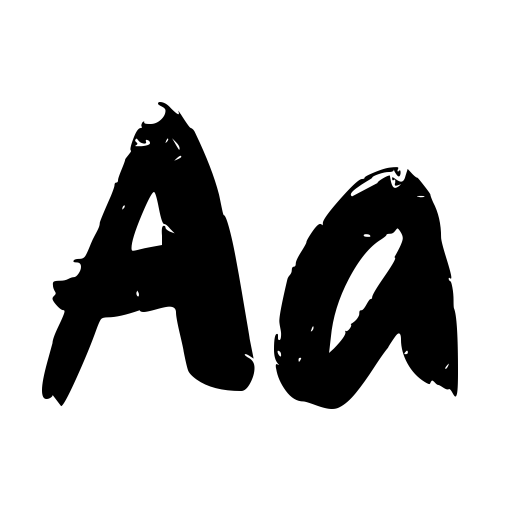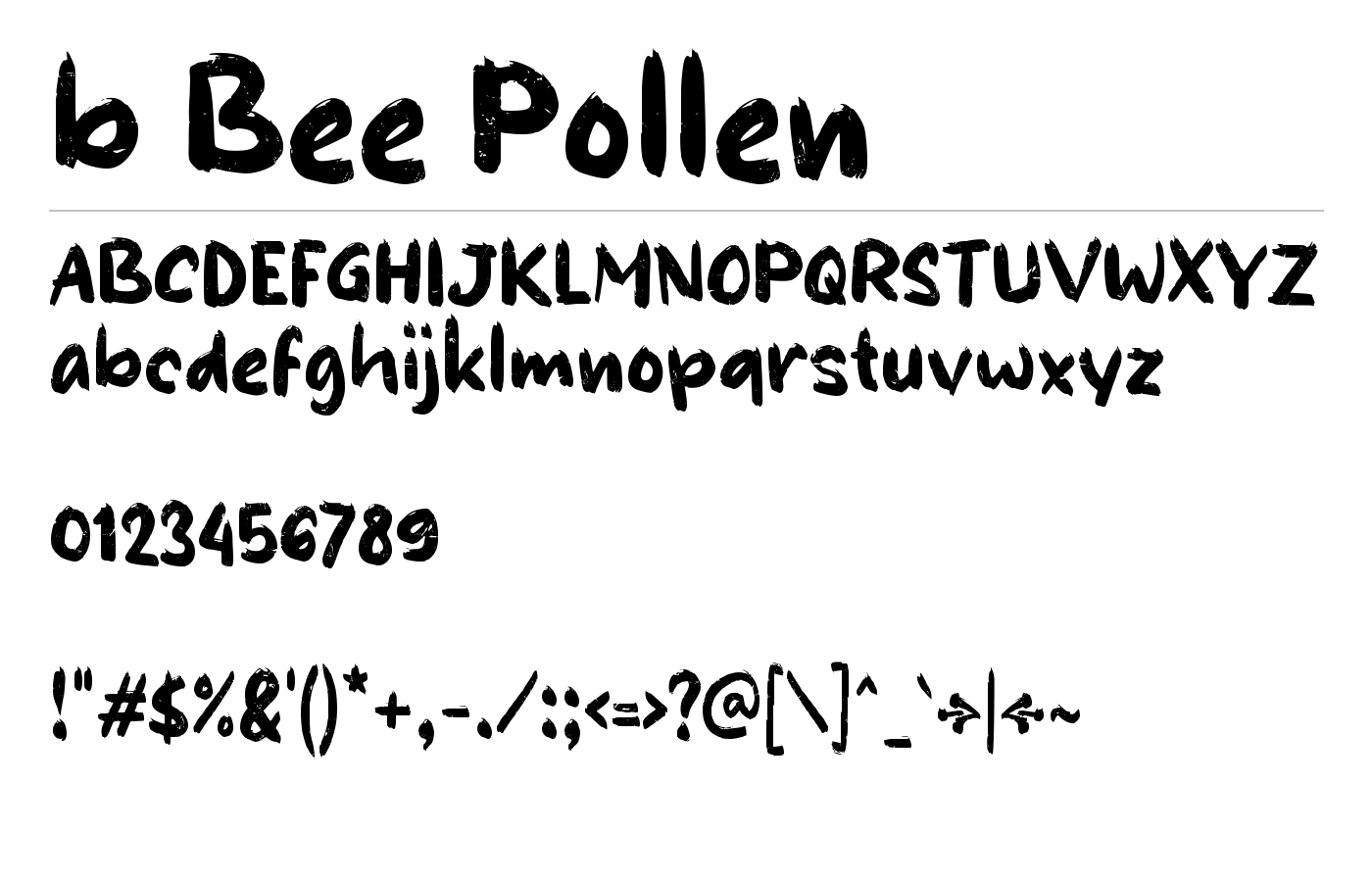
Bee Pollen is a bold and playful handwritten font with a textured, brush-stroke effect that adds a casual, artistic feel. Its irregular, organic shapes and lively energy make it ideal for creative projects, friendly branding, and eye-catching headlines where a fun, natural vibe is desired. This font works great for packaging, posters, and designs that seek to stand out with a personal, handcrafted touch.
b Bee Pollen Font